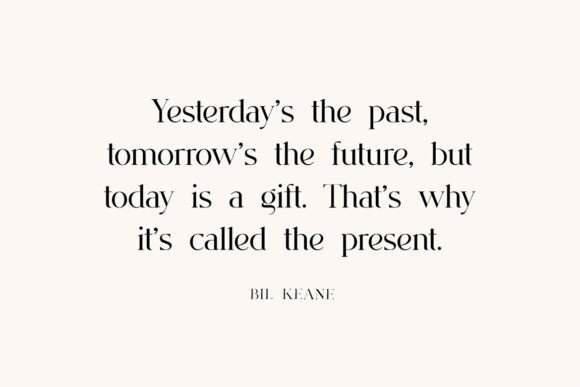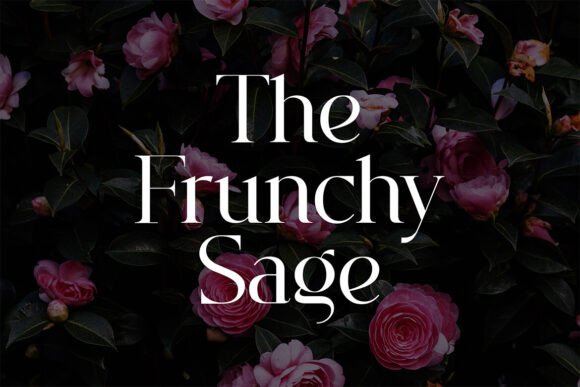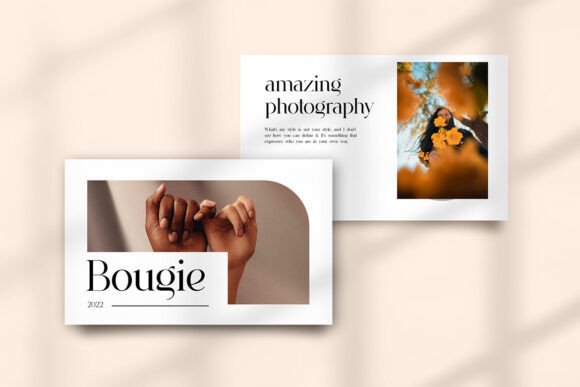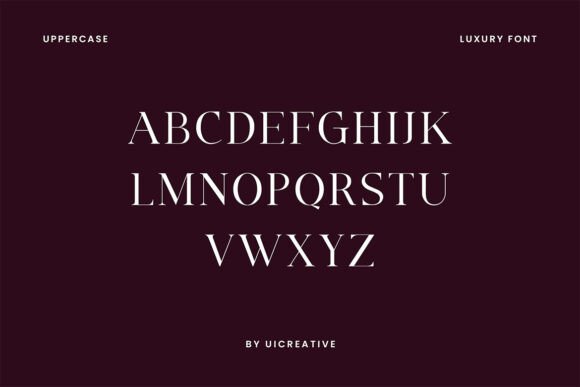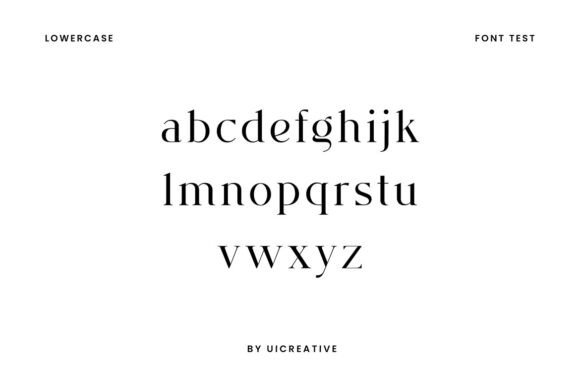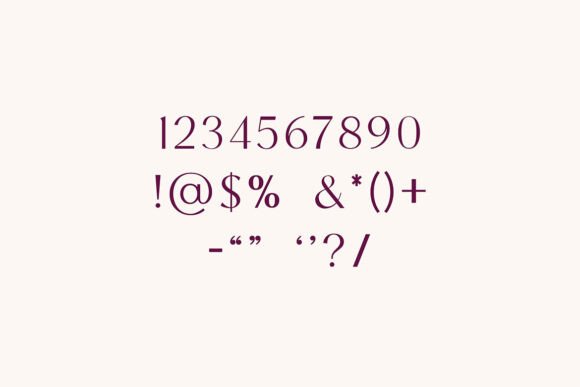
Introduction to Ignacio Maverick Font
As a designer, there’s nothing quite like the thrill of discovering a new font that sparks creativity and elevates a project to the next level. And for many of us, that moment of inspiration often comes from a font that exudes elegance, sophistication, and a touch of class. Enter the Ignacio Maverick Font, a stunning display font that’s about to become your go-to design resource for a wide range of creative projects.
Whether you’re working on a high-end branding project, crafting a wedding invitation, or designing a magazine cover, the Ignacio Maverick Font is sure to impress with its beautiful, classy, and stylish aesthetic. And with its transparent background option, you can easily place it over any image or design element, adding an extra layer of sophistication to your work.
But what truly sets the Ignacio Maverick Font apart is its versatility – it effortlessly balances masculine and feminine qualities, making it an ideal choice for fashion-related branding or editorial design. With its high-quality design and free download option, you can unlock endless creative possibilities without breaking the bank.
Key Features of Ignacio Maverick Font
- Unique, hand-drawn design that adds a touch of elegance to any creative project.
- Perfect for use in creative projects such as logos, branding materials, and advertisements.
- Can be easily customized to fit any design style or theme, making it a versatile design resource.
Honest Review: Ignacio Maverick Font
I recently came across the Ignacio Maverick Font, a unique and stylish design resource that has caught my attention. With its high quality and creative flair, it’s perfect for adding a touch of sophistication to any project.
One of the standout features of the Ignacio Maverick Font is its transparent background, making it easy to use in various design scenarios. The font itself is highly customizable, offering a range of styles and sizes to suit any creative project.
- High-quality design that stands out from the crowd
- Customizable styles and sizes
- May not be suitable for very formal or traditional designs
- Limited character set compared to other fonts
- Not ideal for small text sizes
Overall, the Ignacio Maverick Font is a great addition to any designer’s toolkit. Its unique style and high quality make it perfect for creative projects, and the free download option is a bonus. While it may have some limitations, I believe it’s worth considering for your next design project. ✨
Tips for Getting the Most Out of Ignacio Maverick Font
For the best results, use Ignacio Maverick Font on a transparent background to create a clean and modern design. Experiment with different font sizes and colors to add depth and visual interest to your project. You can also combine Ignacio Maverick Font with other design resources to create a unique and creative project.
Ignacio Maverick Font is a versatile design resource that can be used in a variety of creative projects, including logos, branding materials, and digital designs. It’s a great option for designers who want to create a high-quality and unique visual identity for their clients or personal projects.